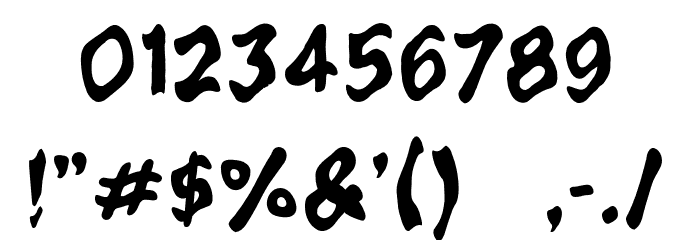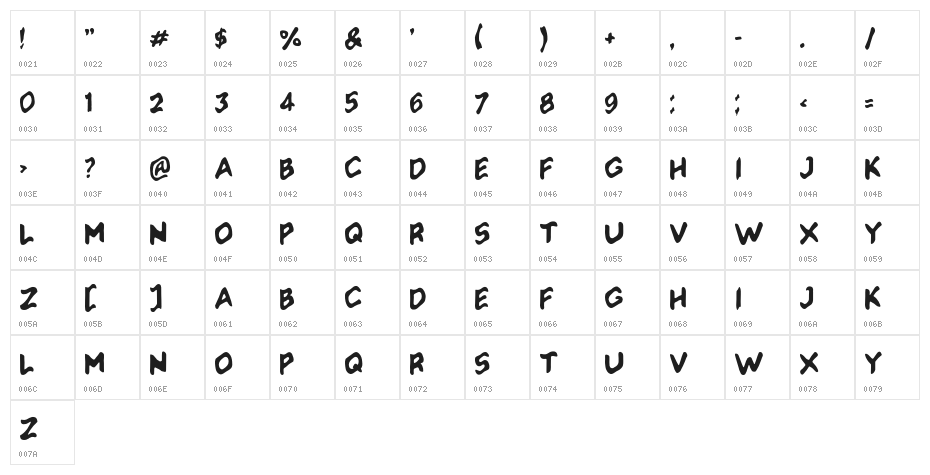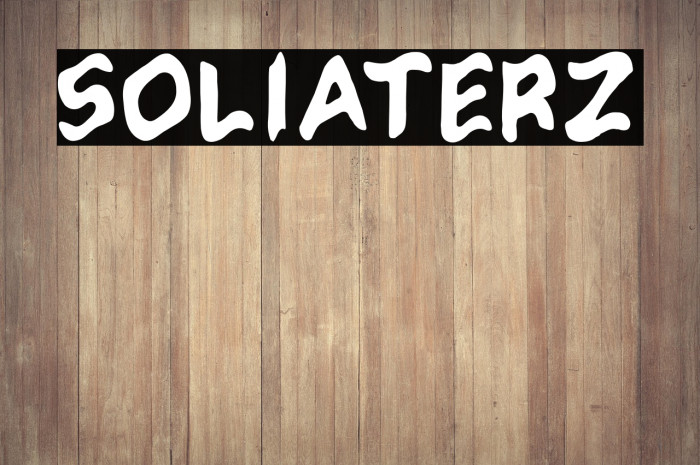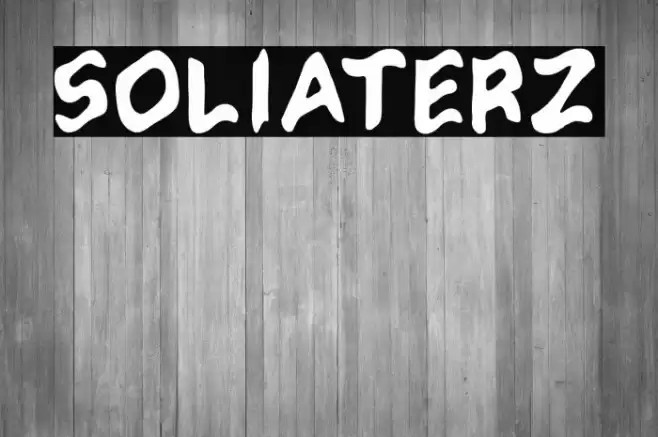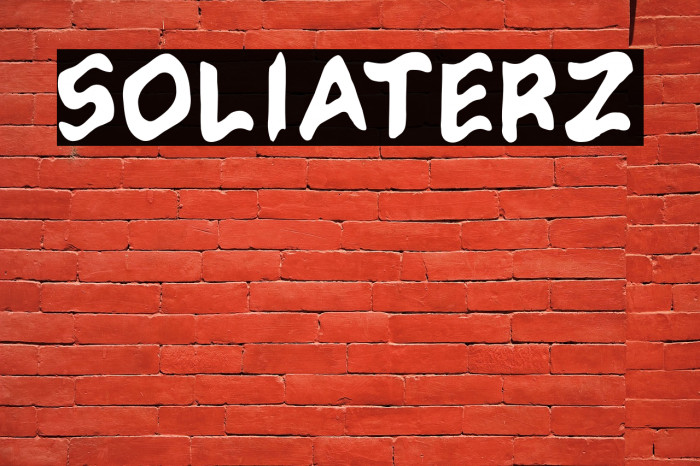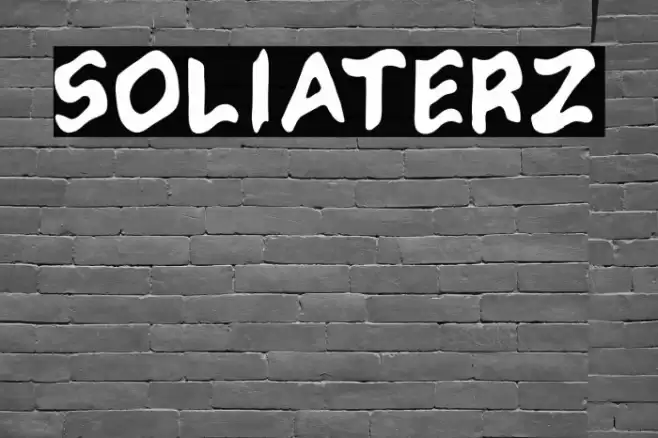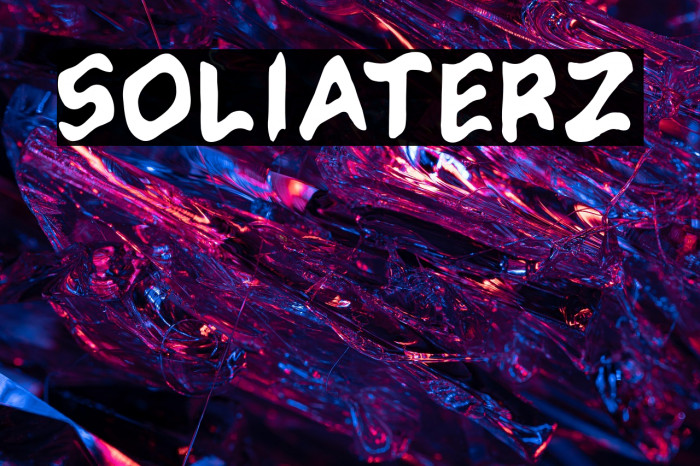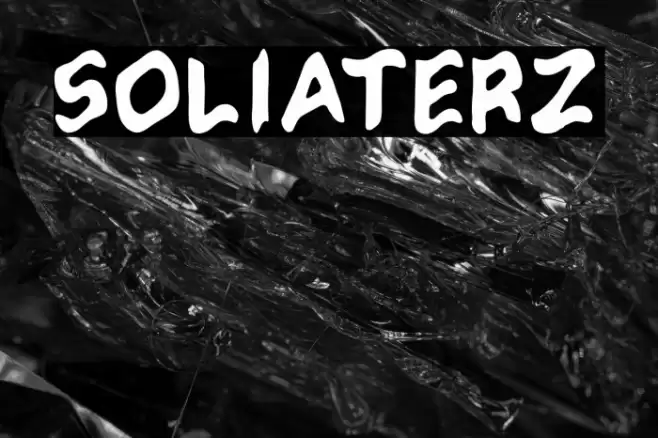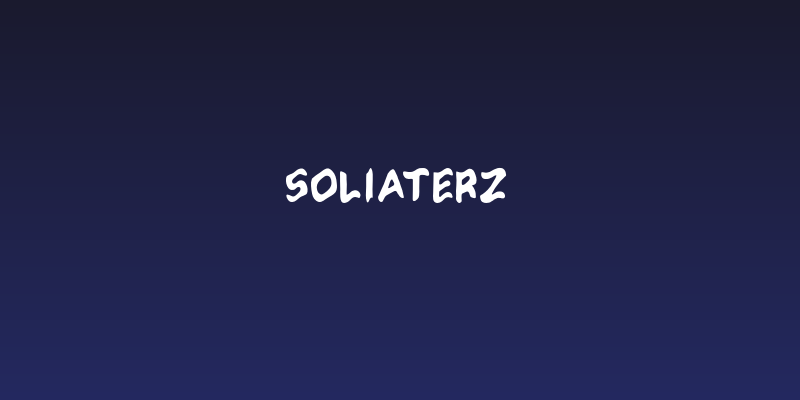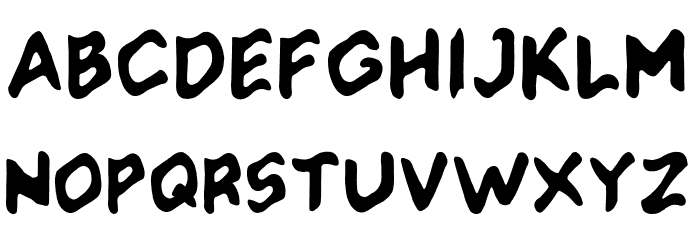
Soliaterz Font
Soliaterz Description
This font features a bold and playful design with a hand-drawn aesthetic. The characters are thick and rounded, giving a friendly and approachable feel. The uppercase and lowercase letters maintain a consistent style, with slightly irregular edges that add to the handcrafted look. The numbers and special characters follow the same design principles, ensuring uniformity across all glyphs. This font is ideal for projects that require a personal touch or a casual vibe, such as children's books, greeting cards, or playful branding.
| Proposed Projects | Ideal for children's books, greeting cards, playful branding, and casual designs. |